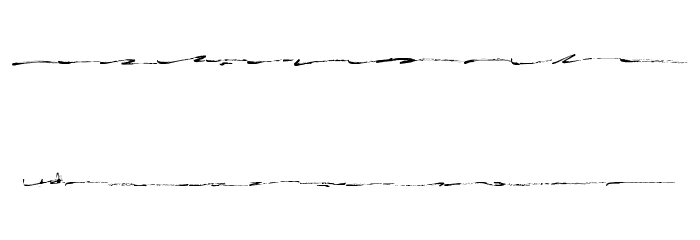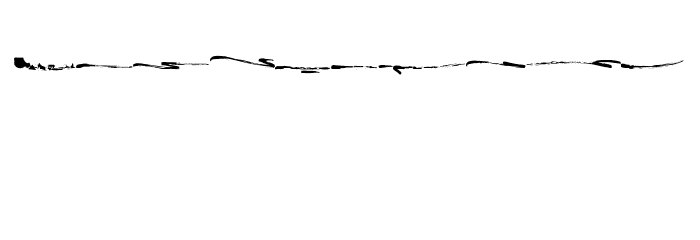
Remember Moment swash Font
This design features a series of elegant, flowing lines that resemble delicate swashes. The lines are thin and graceful, with subtle variations in thickness that create a sense of movement and fluidity. The overall appearance is reminiscent of calligraphic strokes, suggesting a refined and artistic style. These swashes could be used to add a decorative touch to various design projects, enhancing the visual appeal with their sophisticated and intricate patterns.
Elegant, flowing swashes with a calligraphic style.
- Font: Remember Moment swash
- Proposed Projects: Ideal for use in wedding invitations, greeting cards, or as decorative elements in graphic design projects.
- Weight: Light
- Character Spacing: Wide
- Use Case: Decorative elements